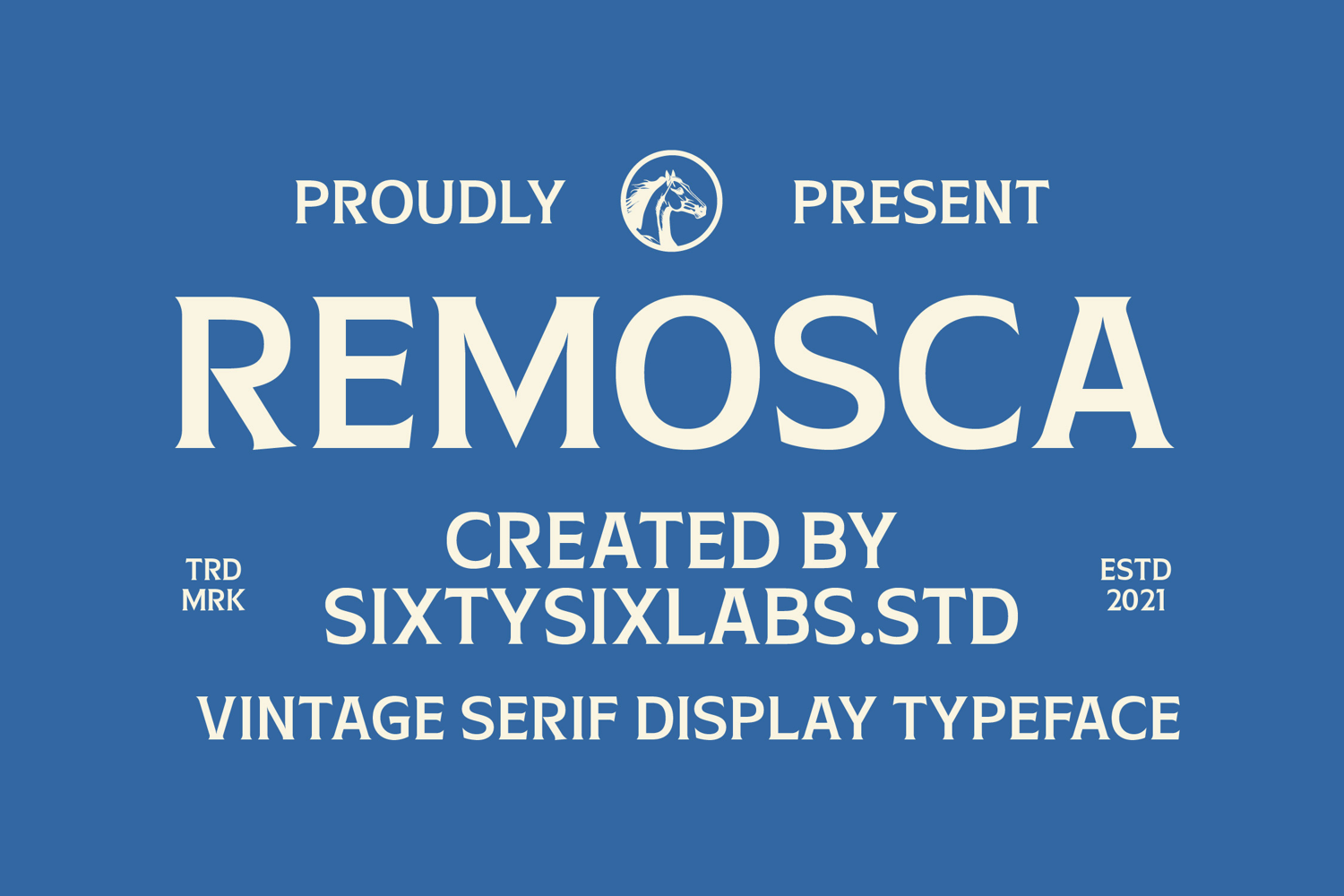
Remosca Display Font
Remosca is a vintage serif display typeface inspired by classic western signage, retro packaging, and timeless Americana typography. It features bold, high-contrast letterforms, elegant curves, and refined serif details, delivering a strong nostalgic character while remaining clean and versatile for modern design projects. This font is perfect for logos, branding, coffee packaging, whiskey labels, apparel, posters, editorial headlines, and heritage-inspired visual identities. Remosca combines rustic charm with premium craftsmanship. Its decorative vintage feel and bold presence make it ideal for designers seeking an authentic retro serif with a confident and memorable personality, enhancing any creative endeavor with its unique style.